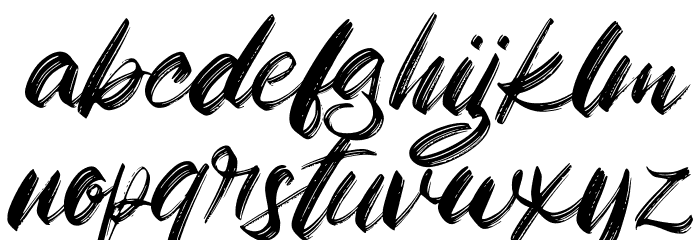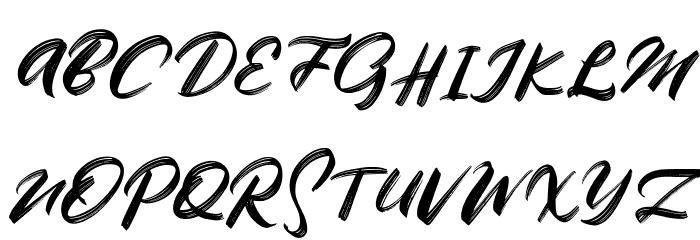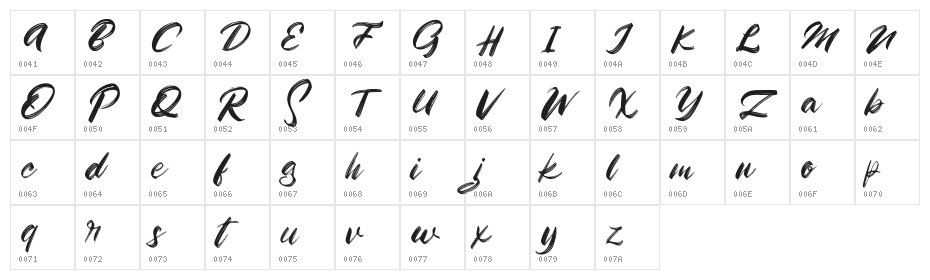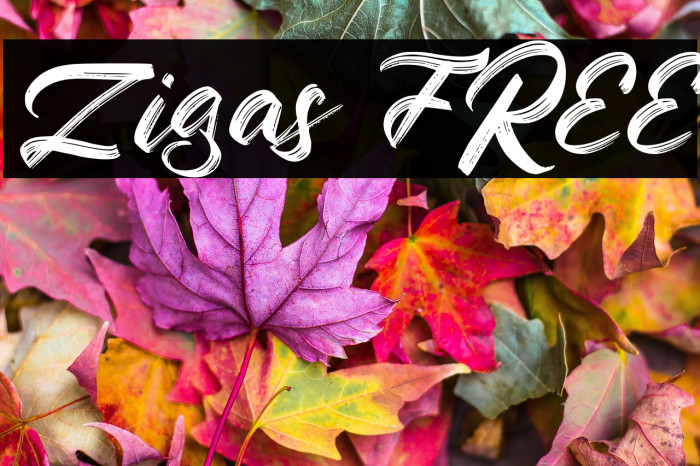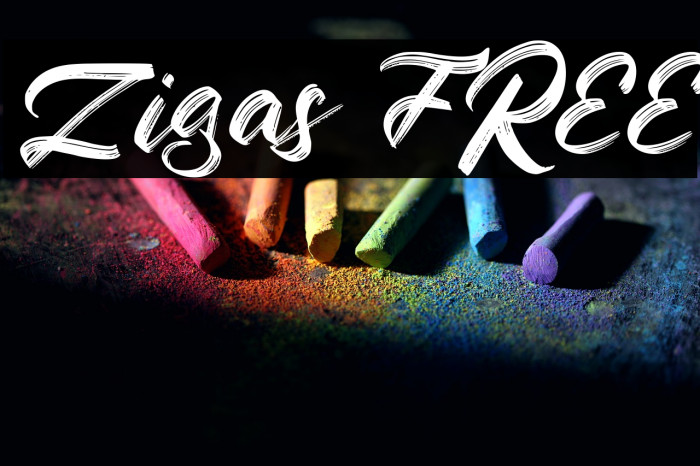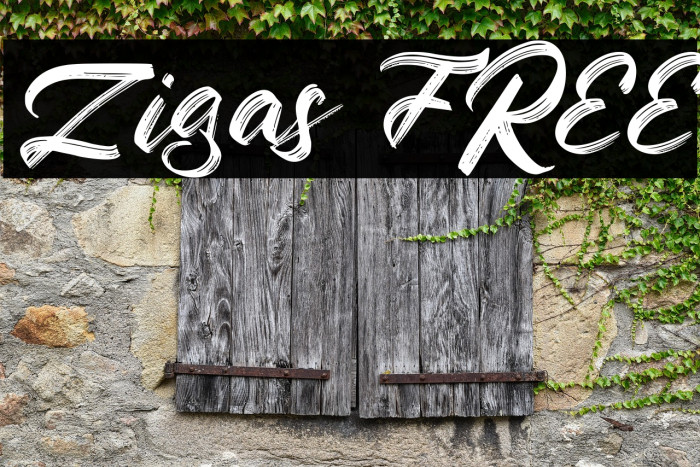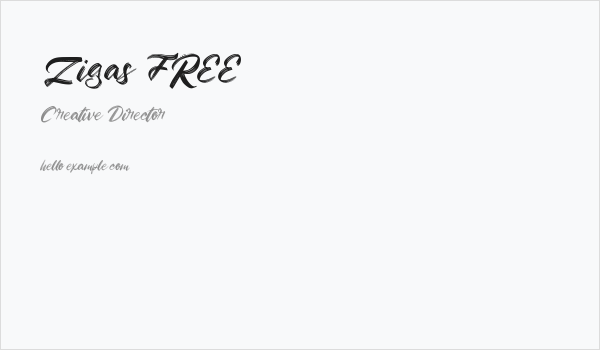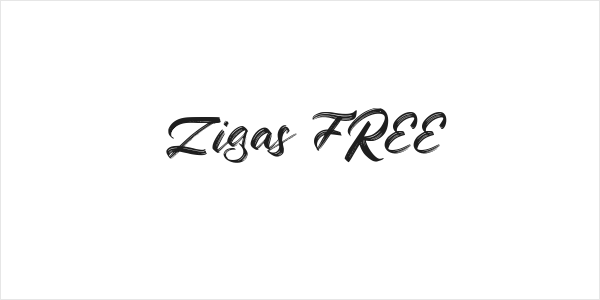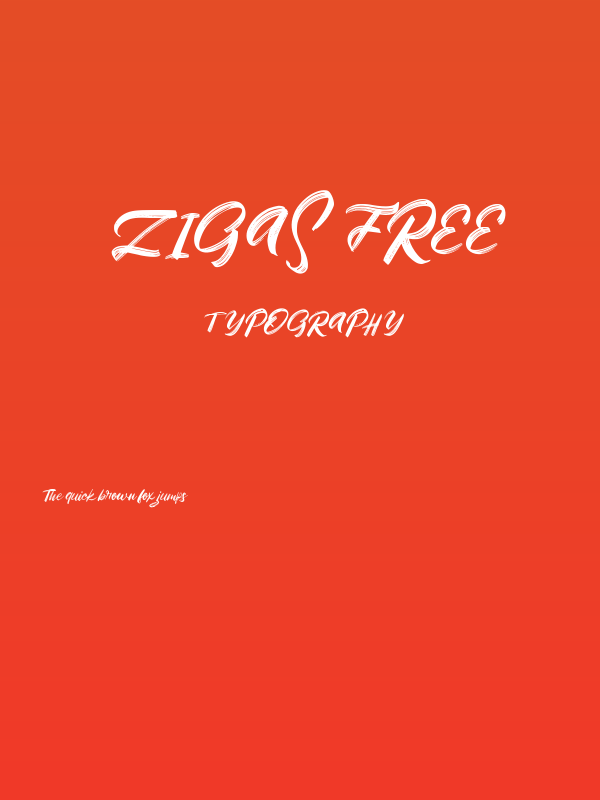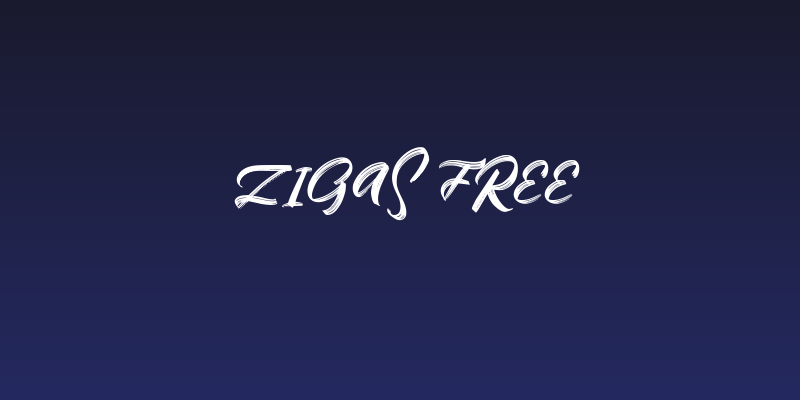
Zigas FREE Font
This font features a dynamic and expressive script style, characterized by its bold, sweeping strokes and fluid, handwritten appearance. The letters are interconnected, creating a sense of movement and energy. The uppercase and lowercase letters maintain a consistent style, with a slight slant that adds to the font's lively nature. The strokes vary in thickness, providing a medium contrast that enhances readability while maintaining an artistic flair. This font is ideal for projects that require a personal touch, such as invitations, greeting cards, or branding materials that aim to convey creativity and elegance.
A bold, expressive script font with dynamic, fluid strokes.
- Proposed Projects: Ideal for invitations, greeting cards, branding, and creative projects.
- Category: Script
- Use Case: Logos, Headlines, Invitations